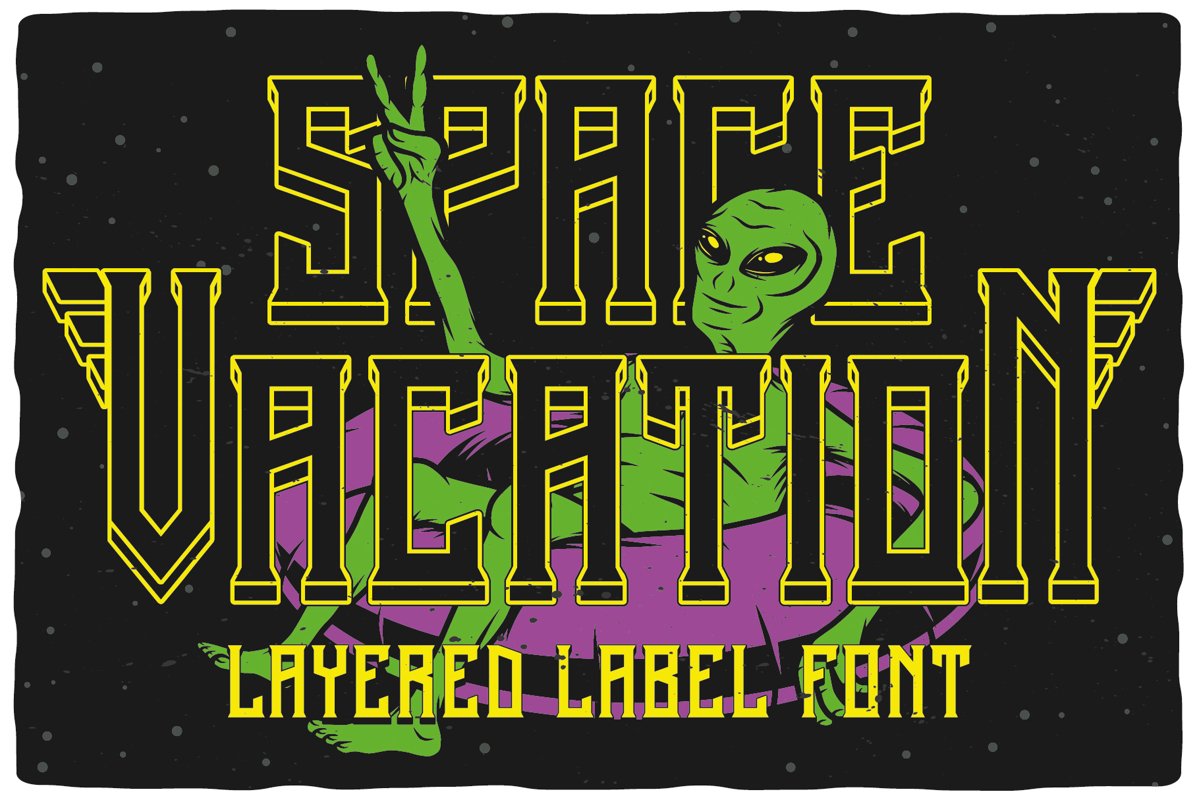
Space Vacation layered font example image 1
Introducing a vintage look label font named "Space Vacation".Typeface includes two styles - Base and Full. Plus two effect styles Outline and Volume, for sample look at 4th preview. This font will good viewed on any retro design like poster, t-shirt, label, logo etc.
For using effect layers:
• Type your text in Base.
• Copy that and paste at the same position.
• Change the style to Outline (or Volume).